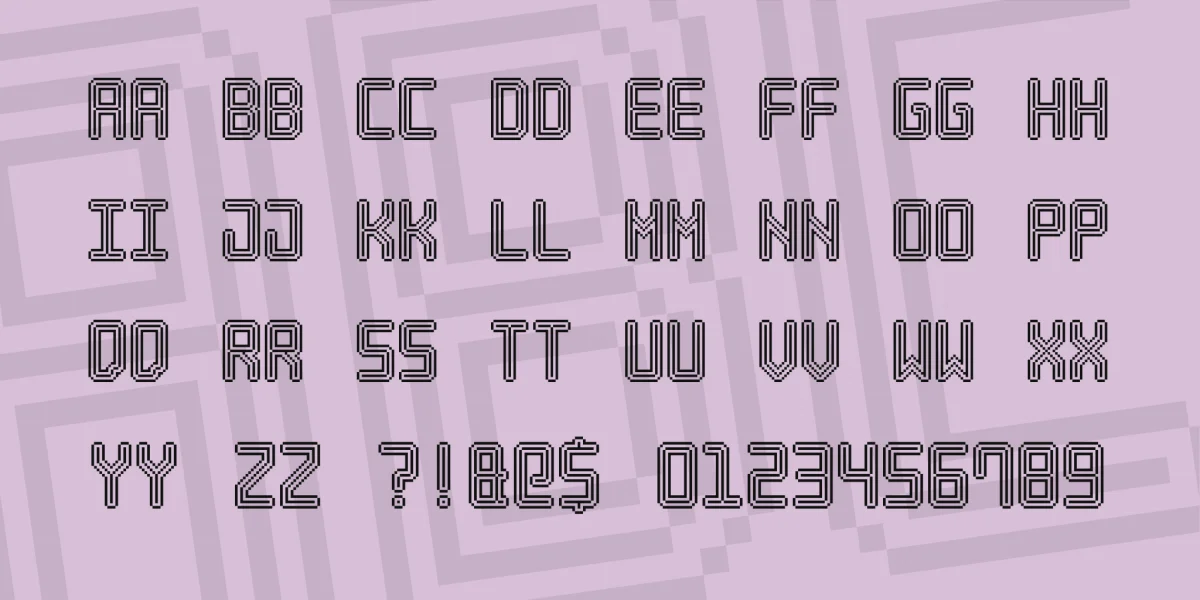
Original monospace pixel font like a neon text. Native size is 30 points. The font Neon Pixel-7 is freeware for home use only, freeware software (credit needed) and for your education process. Use this link to buy the license. Please enter font name in web form.